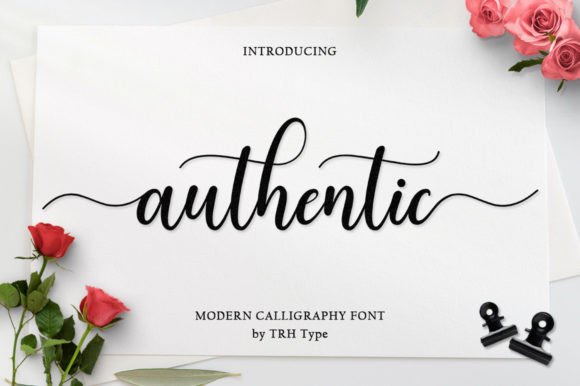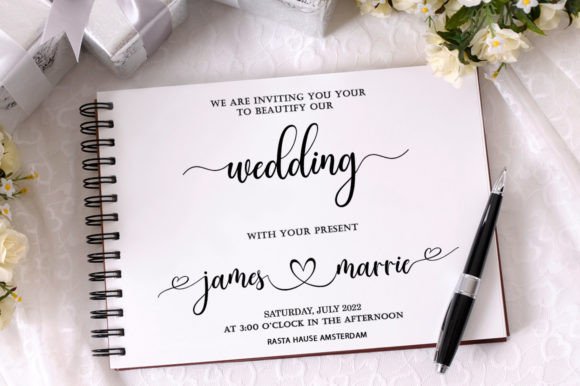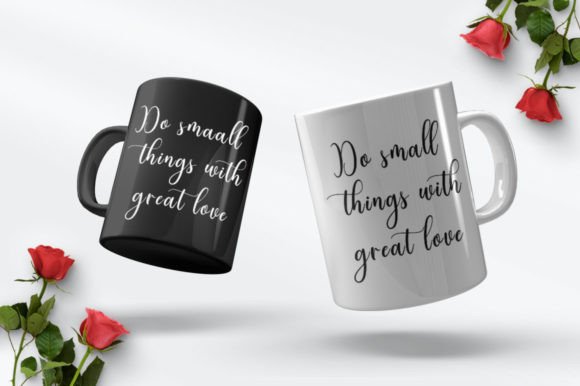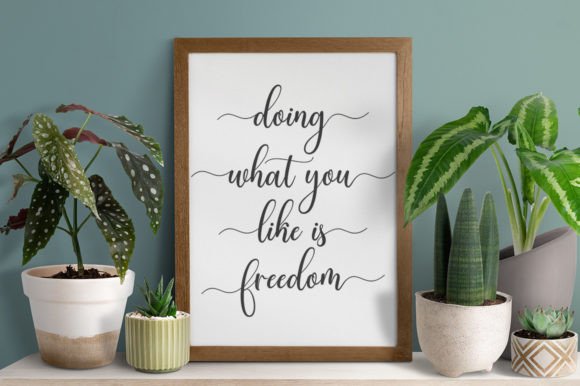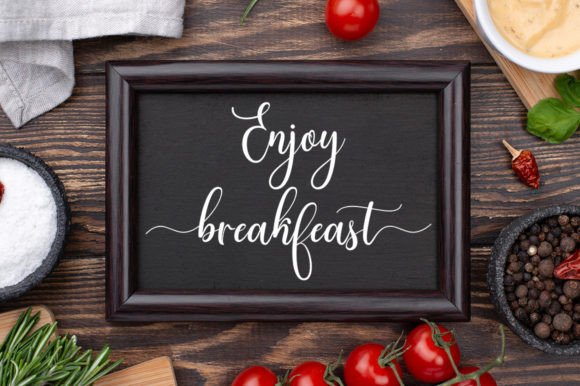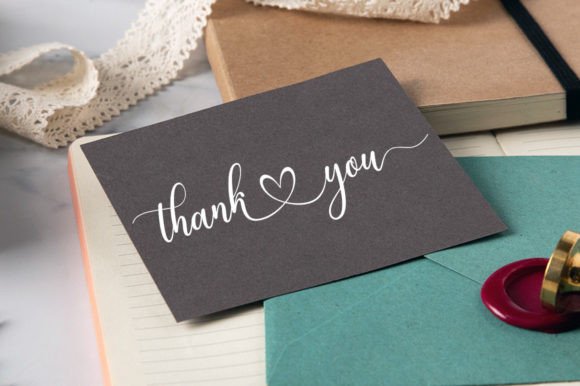
Authentic is a bouncy, thin, and cute script font. This font is sweet and elegant at the same time and its versatility makes it suitable for a wide spectrum of applications. Authentic is PUA encoded which means you can access all the glyphs and ligatures with ease!